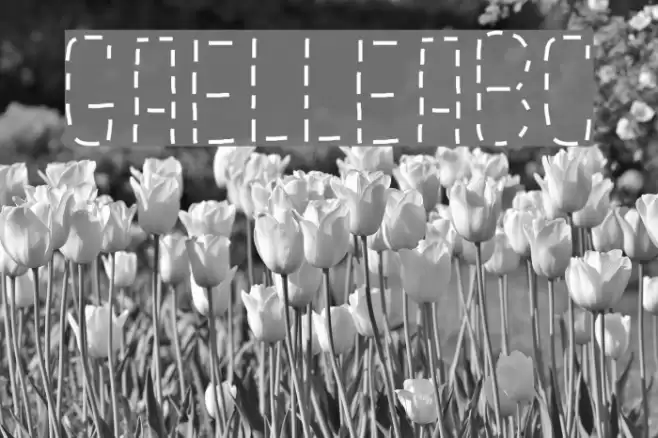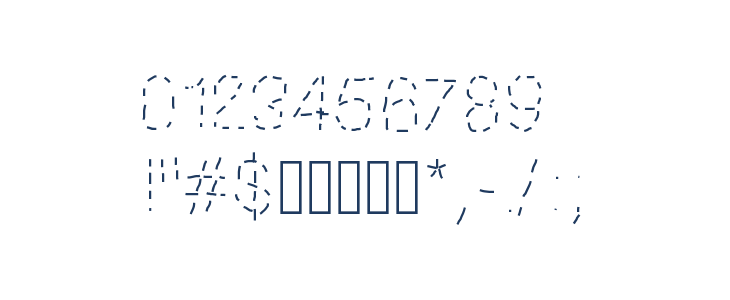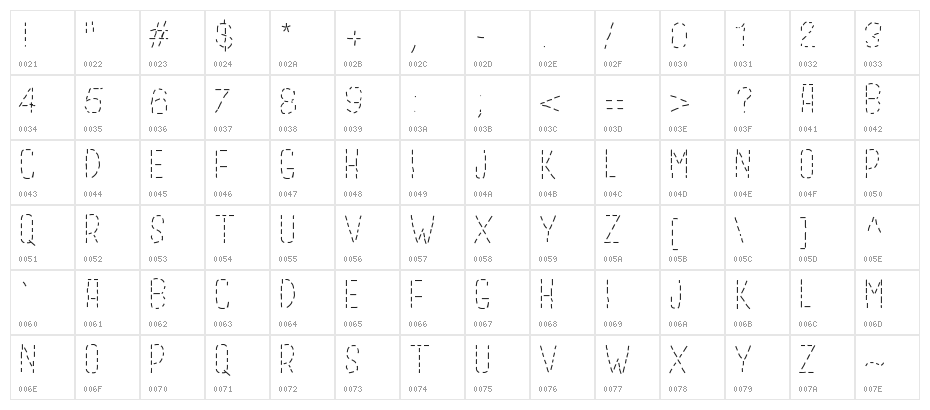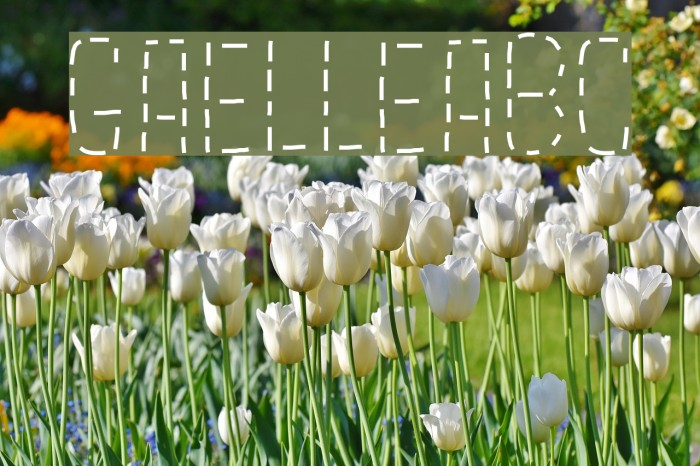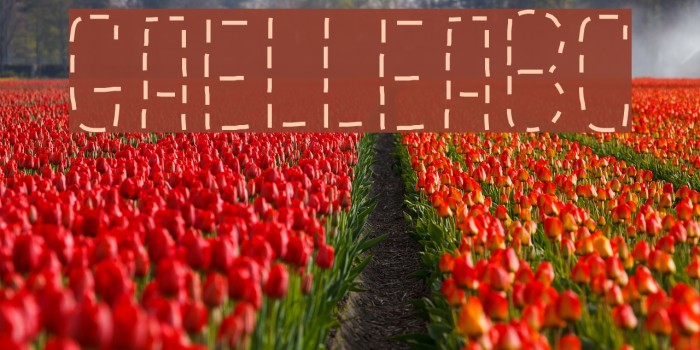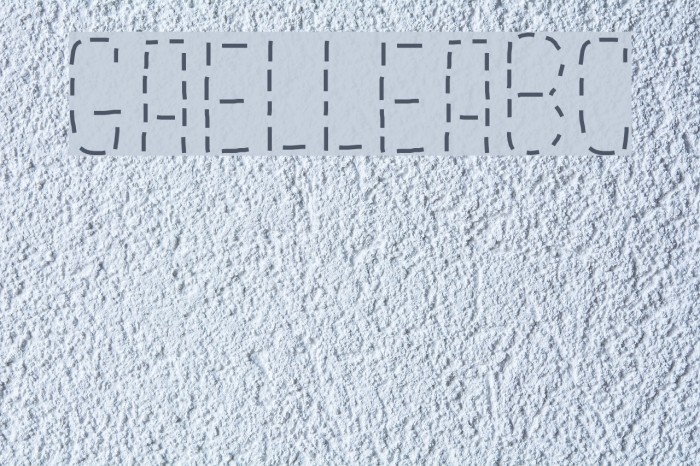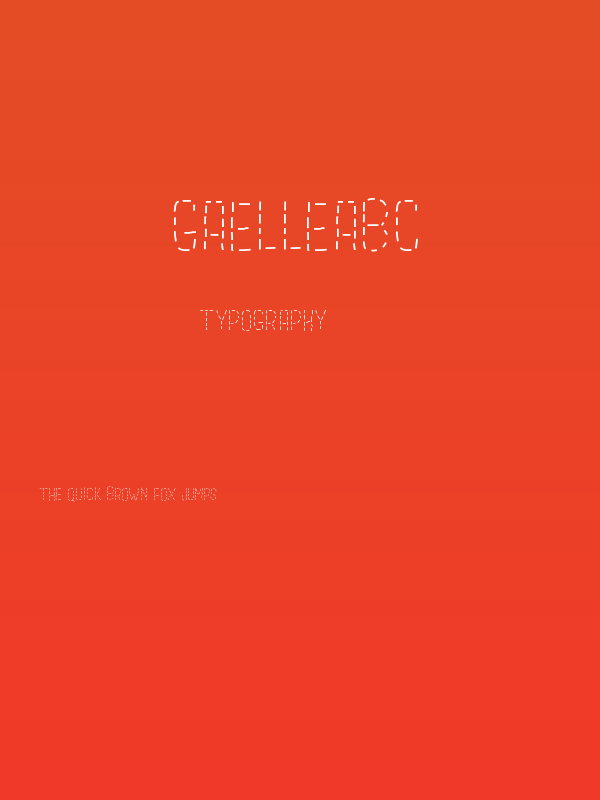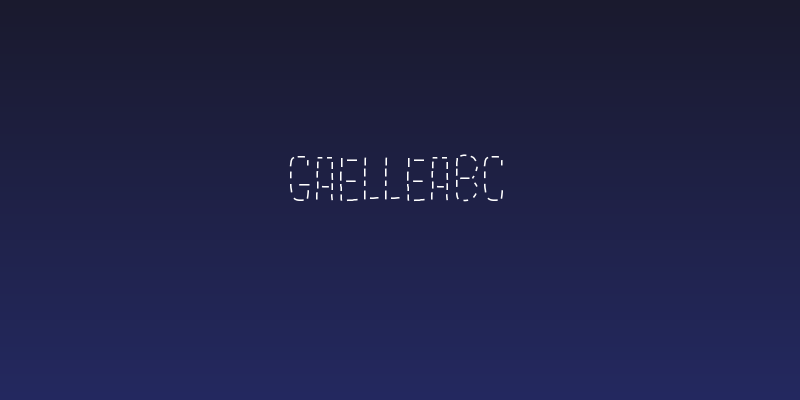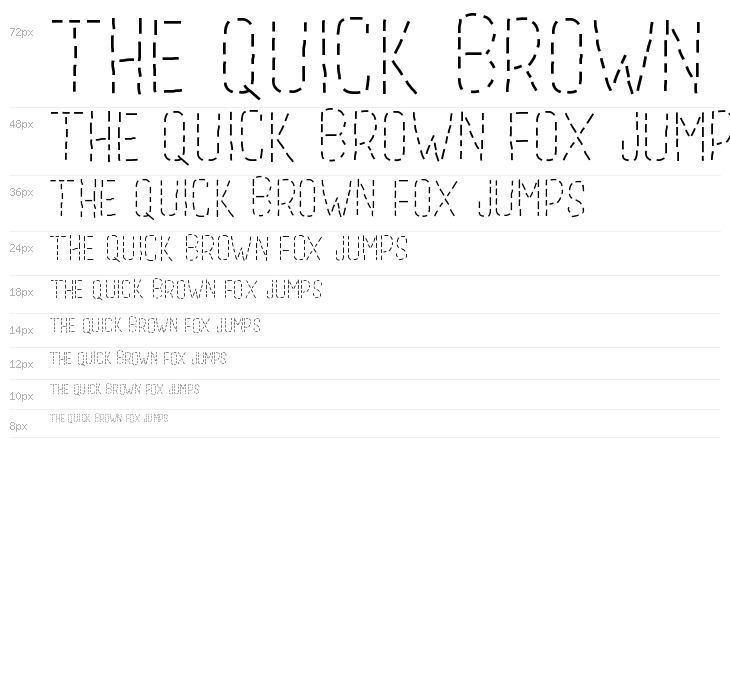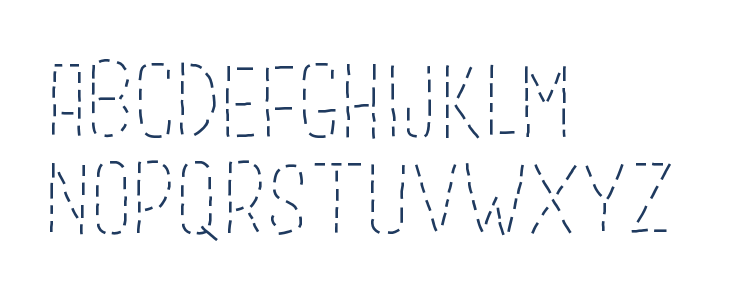
GaelleAbc Font
GaelleAbc Description
This font features a unique, dashed line style that gives it a distinct, modern appearance. Each character is composed of evenly spaced dashes, creating a sense of movement and rhythm. The uppercase and lowercase letters maintain a consistent height and width, ensuring readability while adding a playful touch. The numerals and special characters follow the same dashed pattern, providing a cohesive look across all elements. This font's design is both eye-catching and functional, making it suitable for a variety of creative applications.
A modern, dashed line font with a playful and rhythmic style from Uncategorized fonts.
- Proposed Projects: Ideal for creative projects such as posters, logos, and digital artwork where a modern and playful aesthetic is desired.
- Use Case: Logos, Posters, Digital artwork